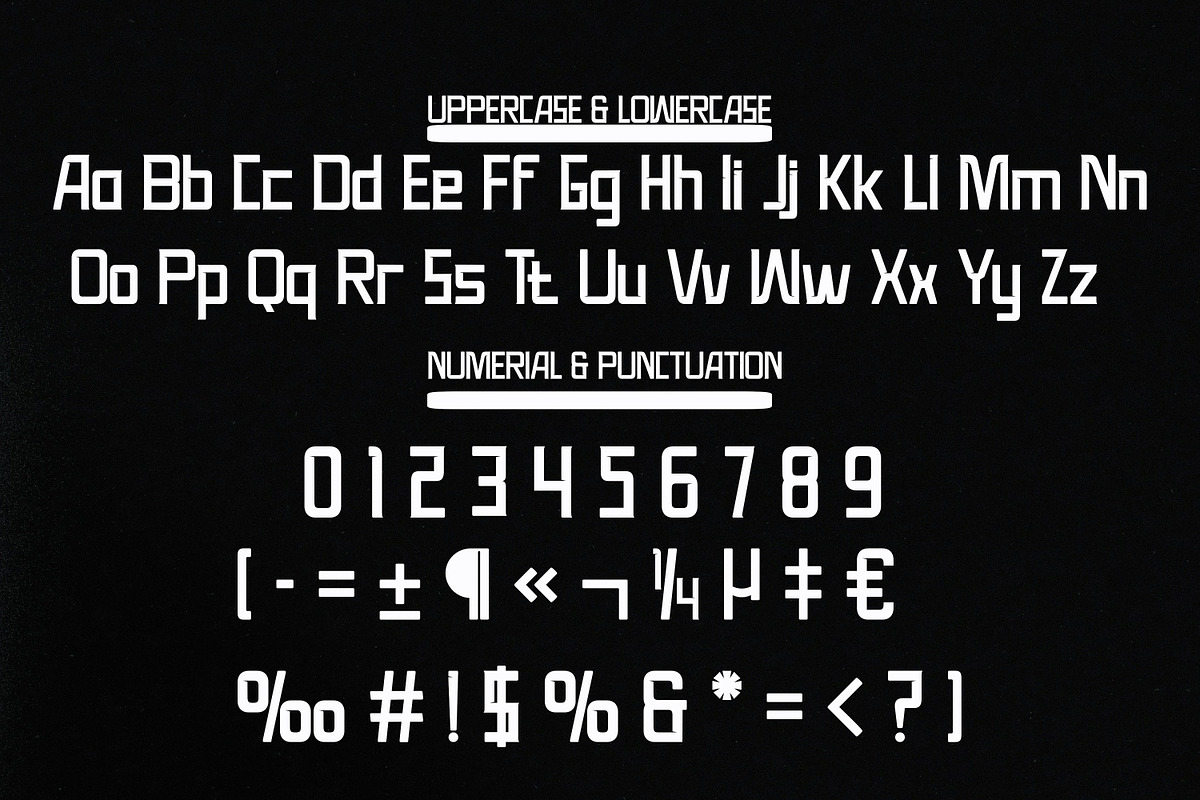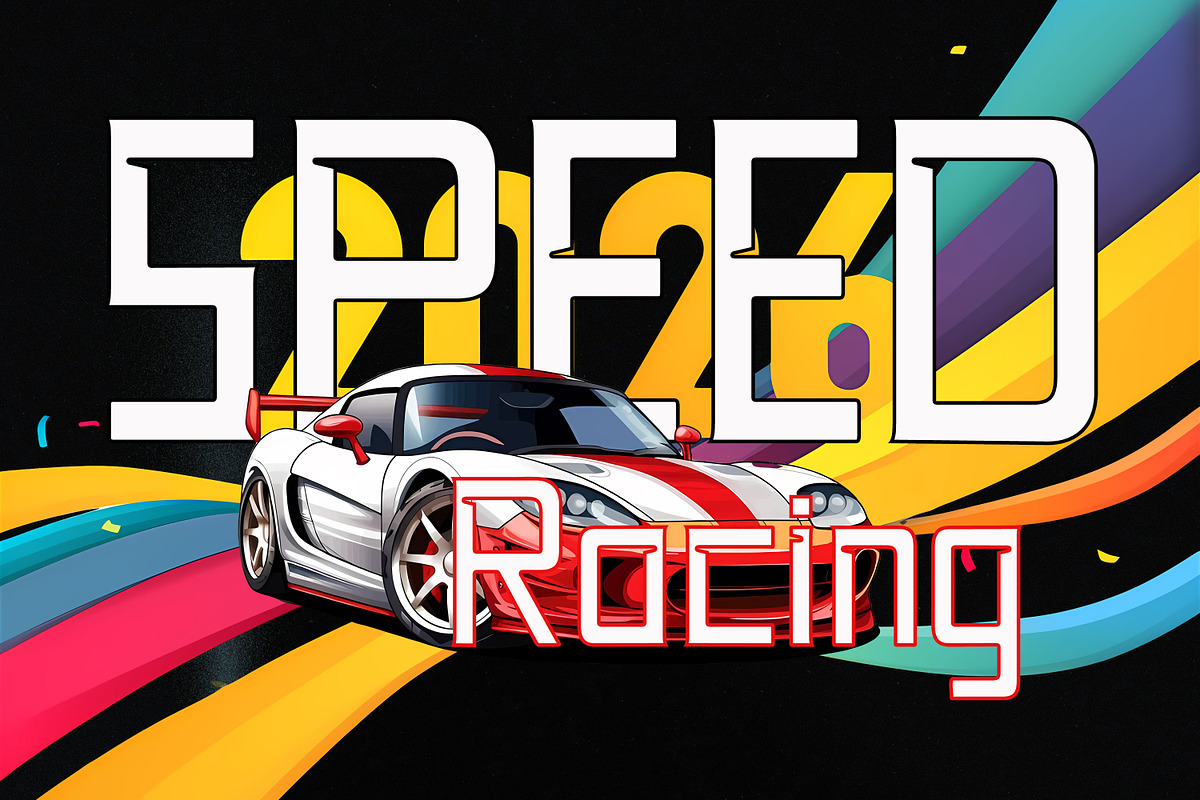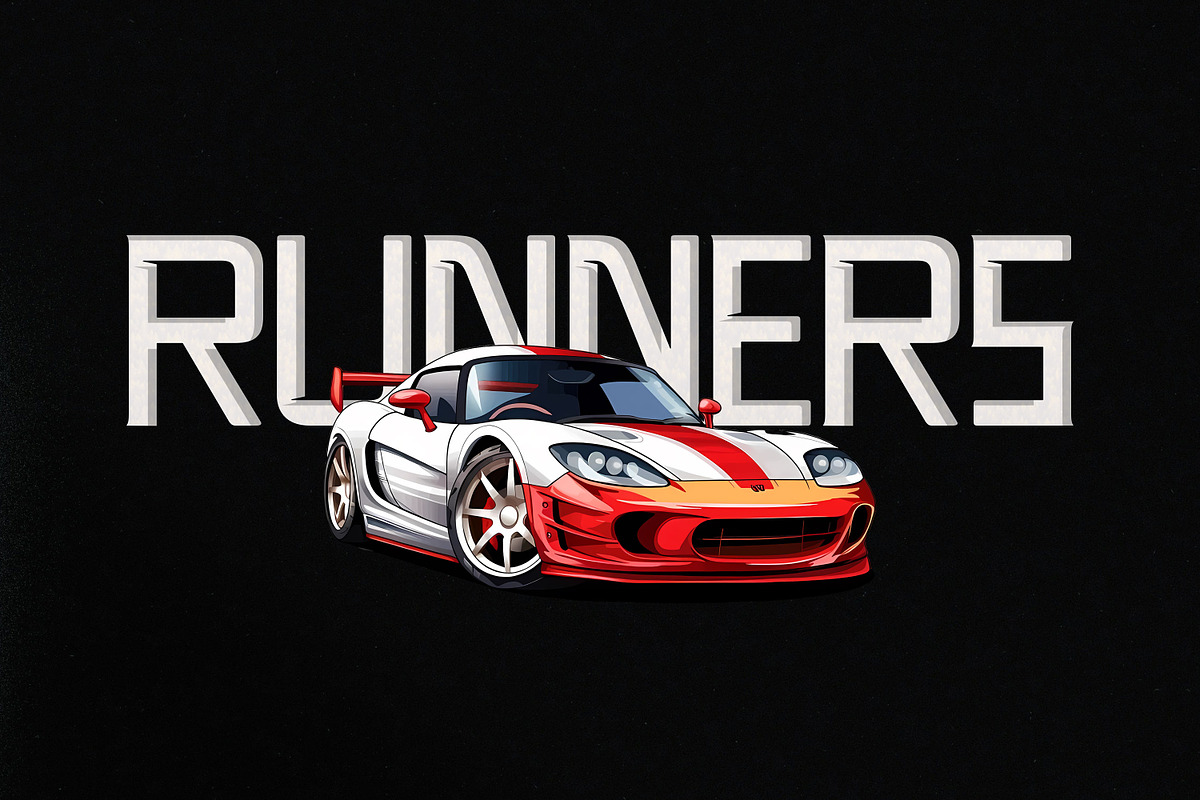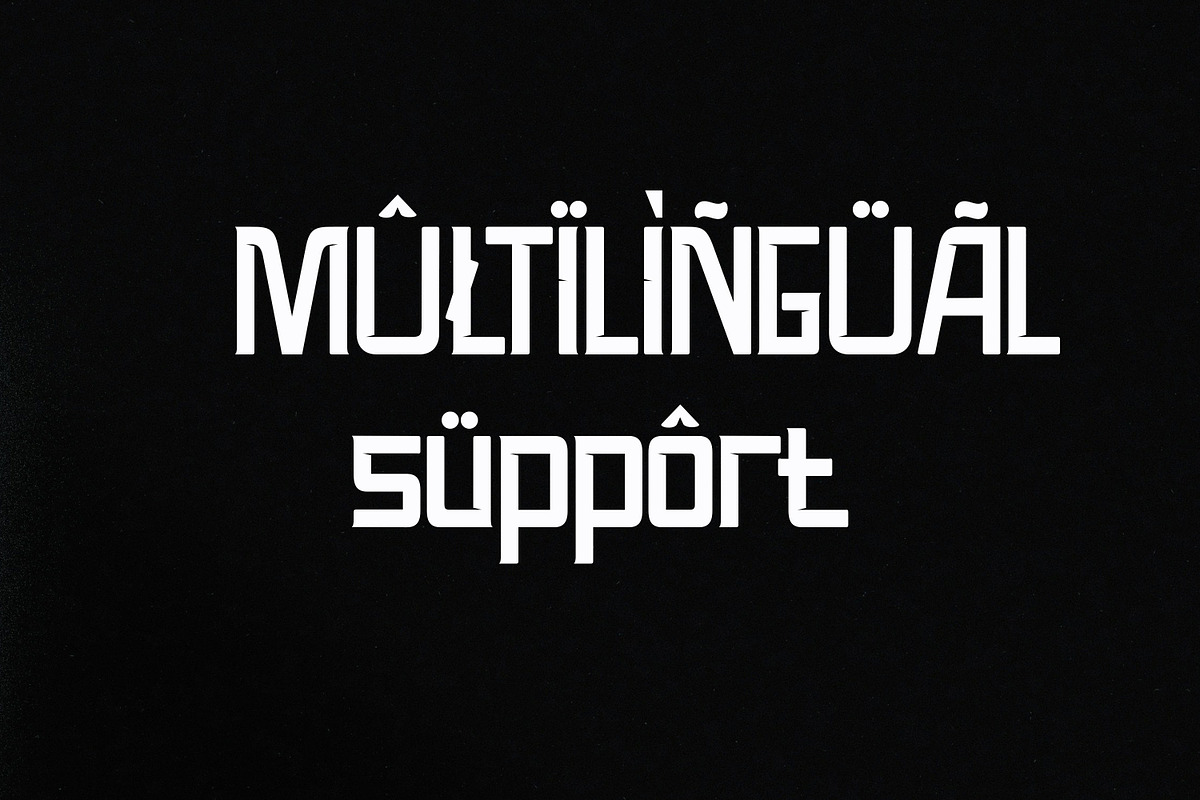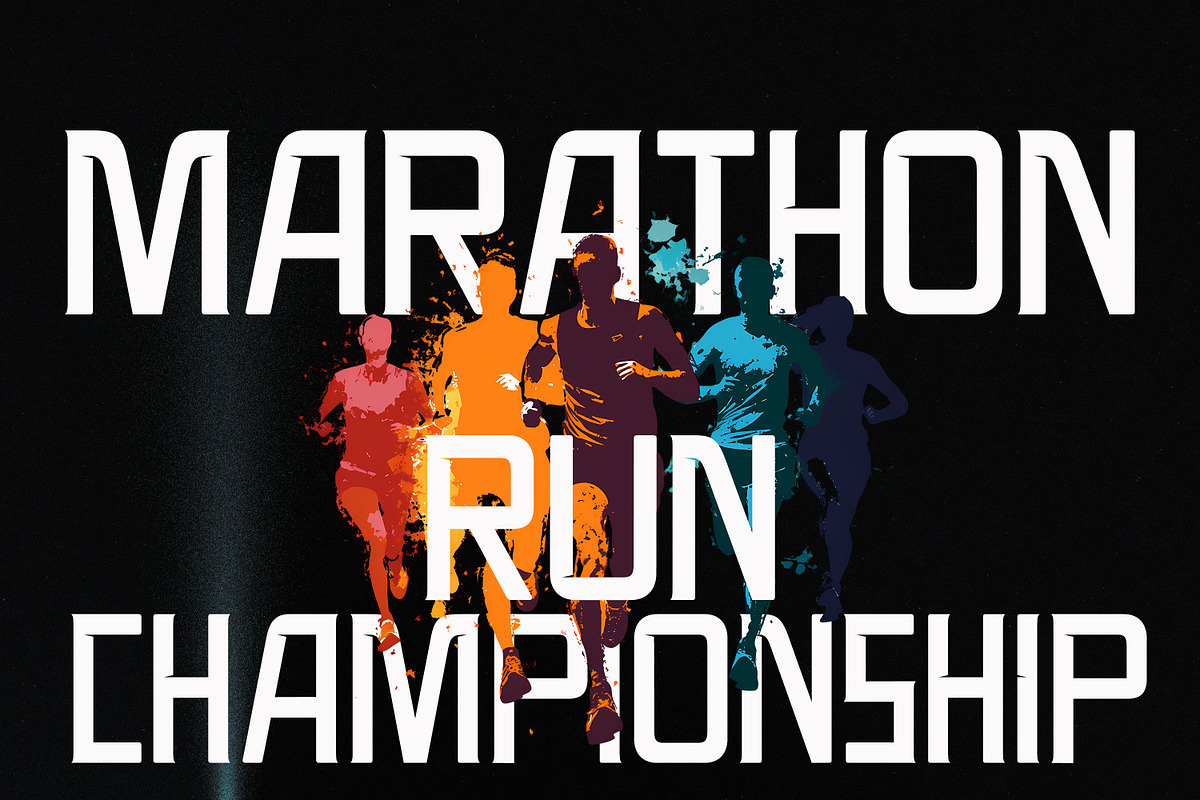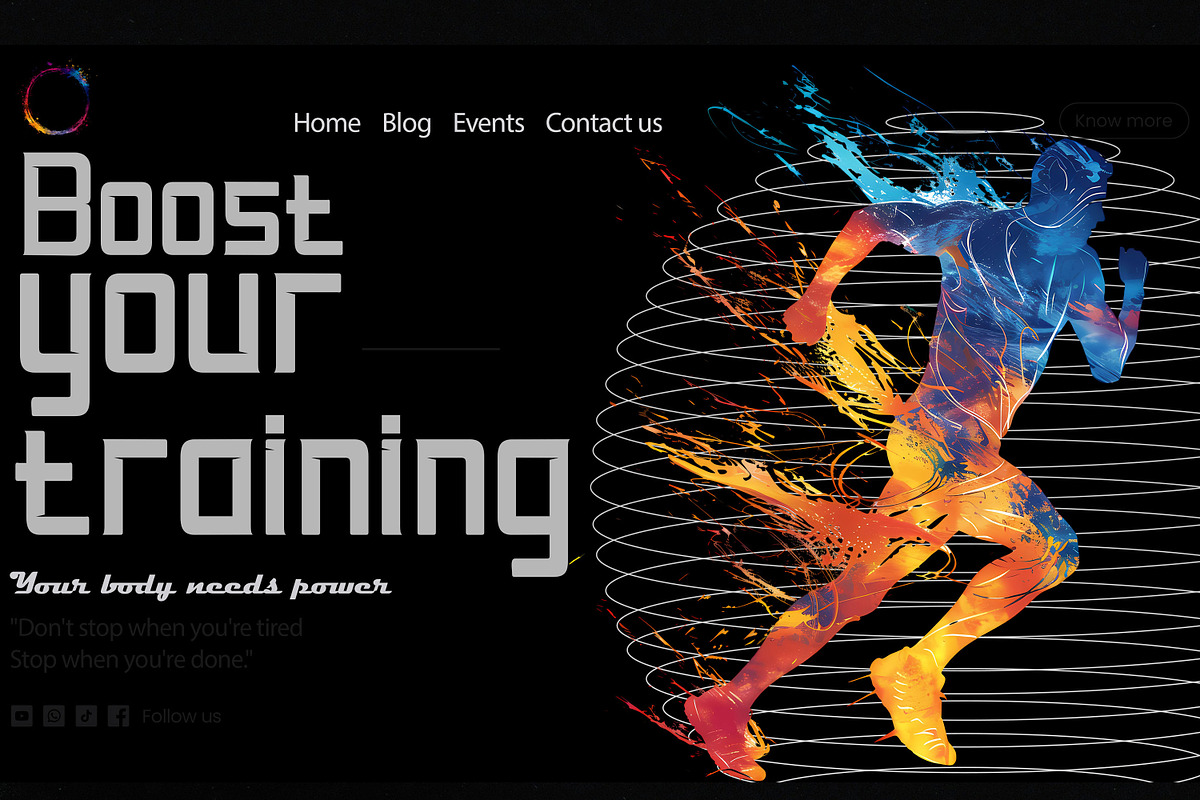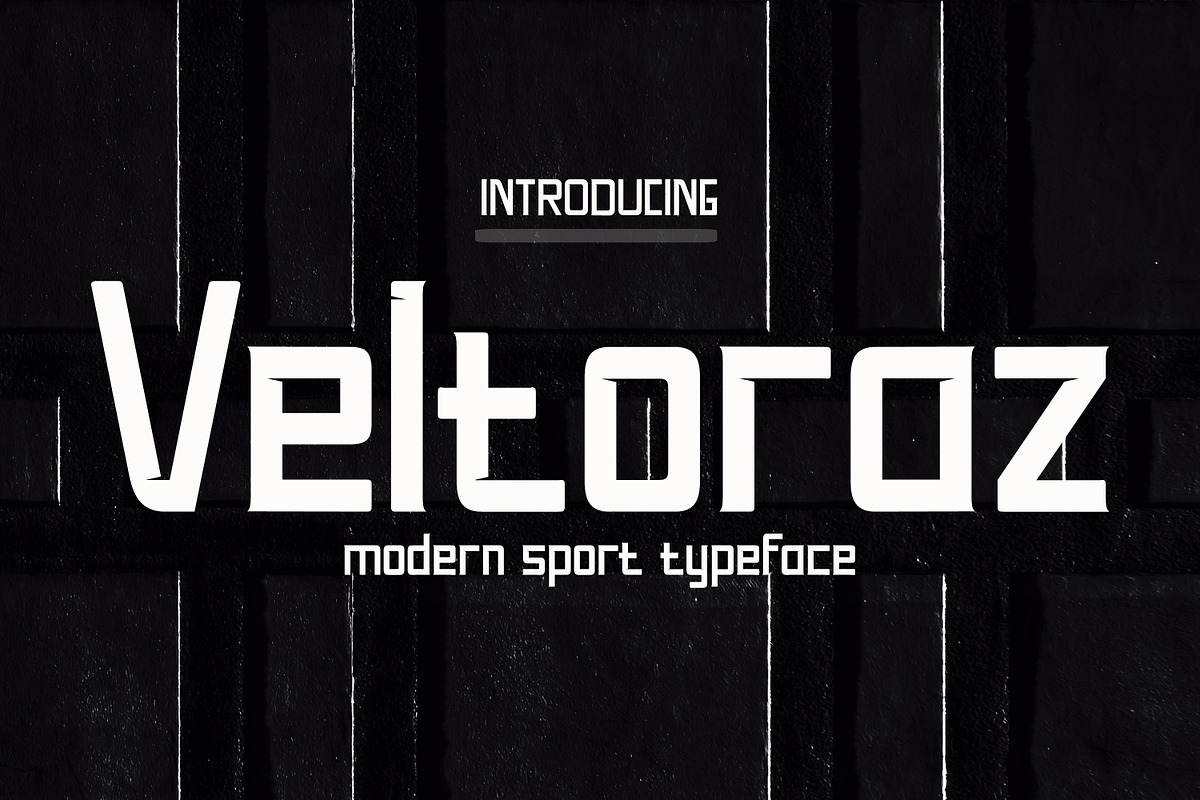
Veltoraz
Veltoraz is a stunning sports font with wide, bold letters and a modern, dynamic design. This font is perfect for high-speed car racing titles, running competitions, cycling, automotive game logos, monograms, and other sports titles that use bold fonts, or posters, logo designs, editorial titles, album covers, and fashion branding. This font attracts attention with its distinctive touch. It also offers other modern and dynamic text.
Veltoraz excels in readability and size, creating an effect of power, thickness, and speed. Designed as a fast and dynamic font, but with a slightly different font design, check it out and get it now.